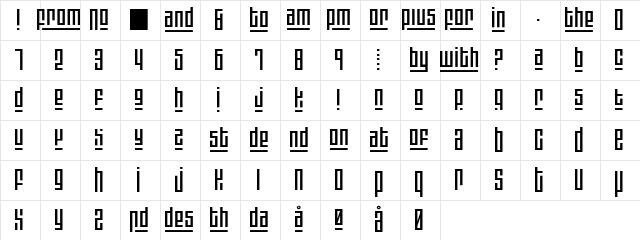
Complete Blackout3 plus1 ExtraLight glyph index. Displaying only characters natively supported by Blackout3 plus1 ExtraLight font.
Blackout3 plus1 is a composed and adaptable typeface that performs quietly and consistently across a wide range of design contexts. Its slender proportions lend an understated elegance to any composition.
Who designed the Blackout3 plus1 ExtraLight font?
This font was published by Ryoichi Tsunekawa. Check the technical specs section for copyright and designer details.